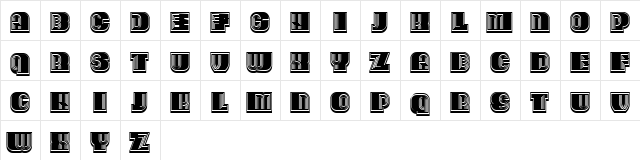
Oliba 3D Regular
Design Context for Oliba 3D Typeface
Oliba 3D is a composed and adaptable typeface that performs quietly and consistently across a wide range of design contexts.